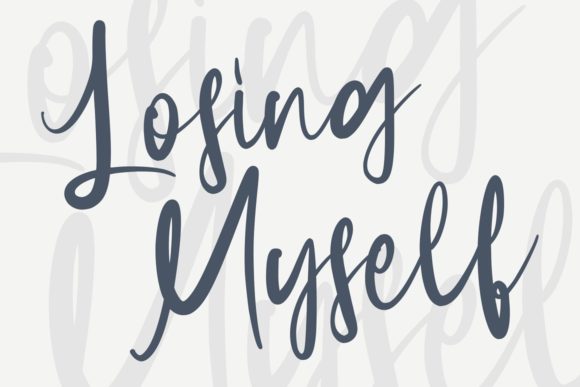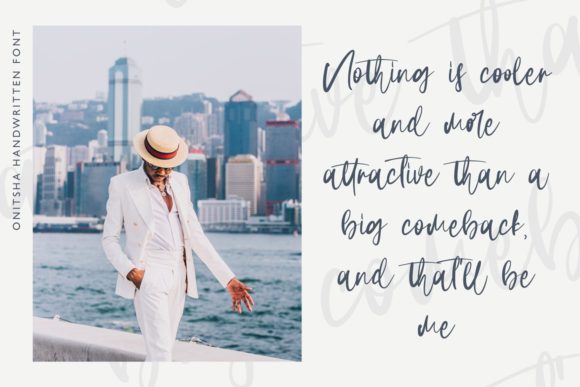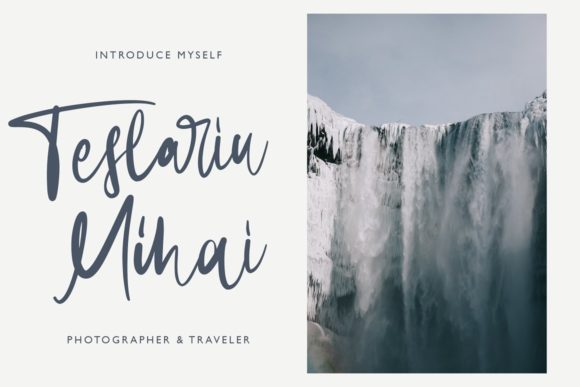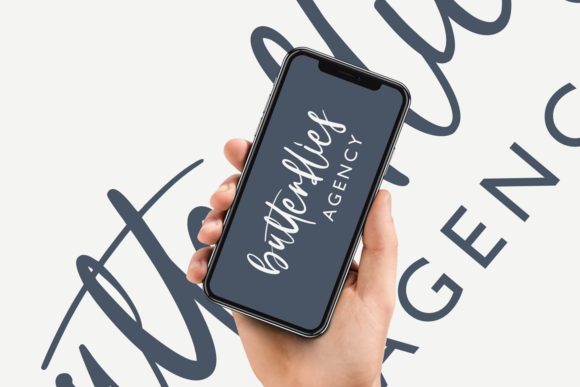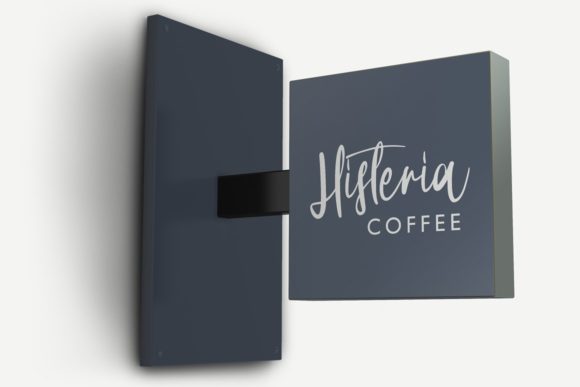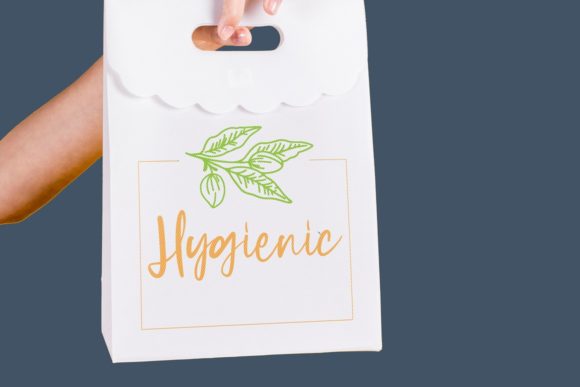
Introduction to Onitsha Font Font
Fonts play a crucial role in design, and the Onitsha Font font is a typeface that brings both character and versatility to any project. Whether you’re working on a branding project, a website, or a print design, the Onitsha Font font offers a unique style that can elevate your work.
Onitsha is a gorgeous and incredibly stylish handwritten font.
It looks beautiful on a variety of designs requiring a personalized style, such as wedding invitations, thank you cards, weddings, greeting cards, logos and so on .
Key Features of Onitsha Font Font
Why Choose Onitsha Font Font?
The Onitsha Font font is more than just a typeface – it’s a design tool that helps you communicate your message with style and clarity. Its unique character set and versatile design make it suitable for a wide range of applications, from elegant invitations to bold headlines.
With its carefully crafted letterforms and balanced proportions, the Onitsha Font font ensures readability and visual appeal across all mediums.
What makes Onitsha Font font special?
The Onitsha Font font stands out with its unique design, exceptional readability, and versatility across various design applications.